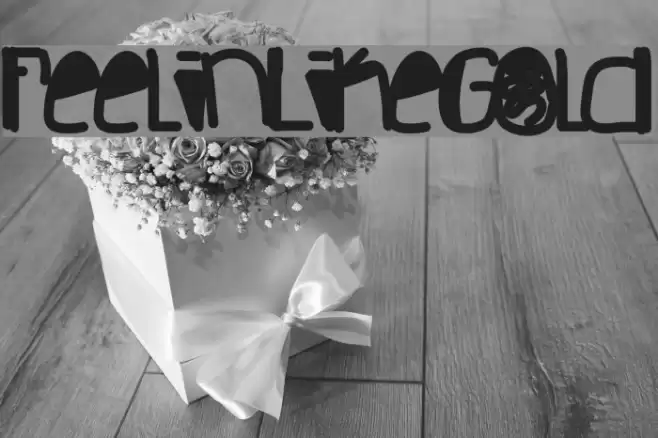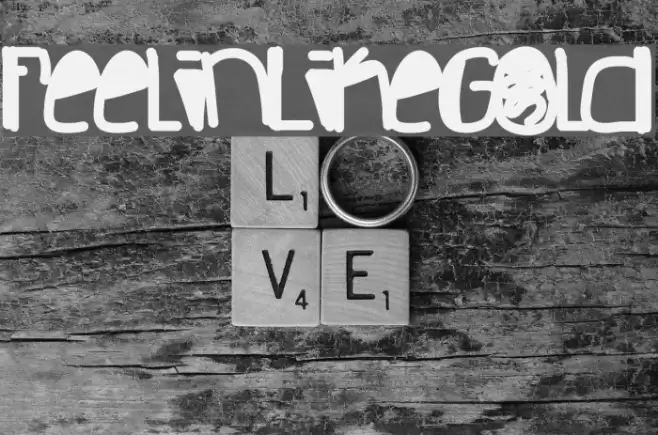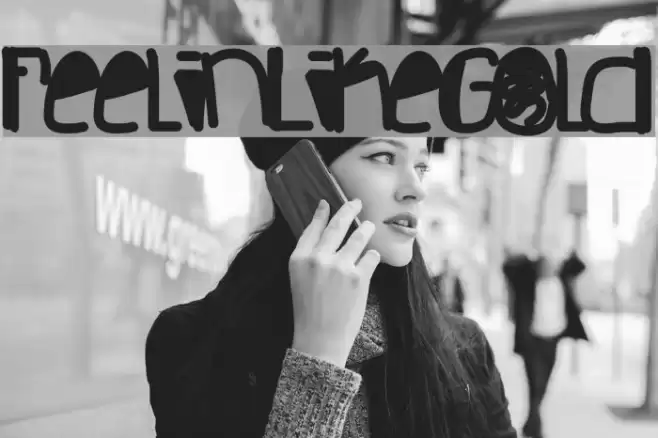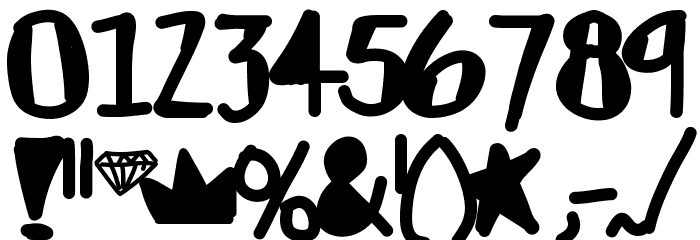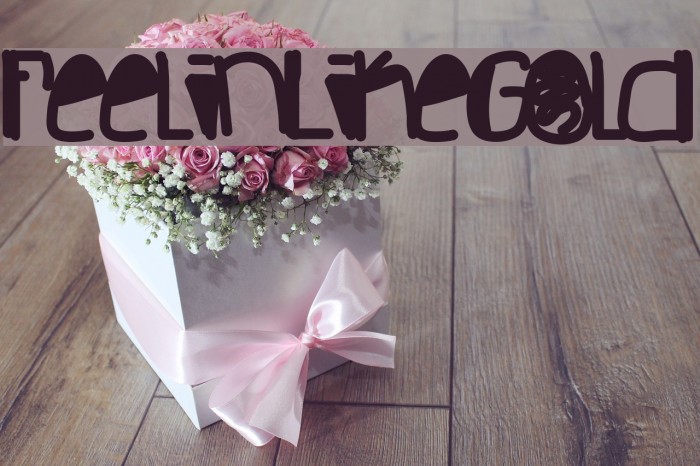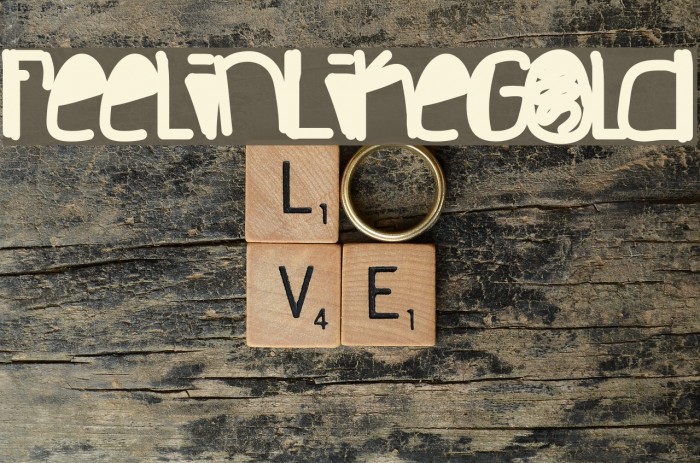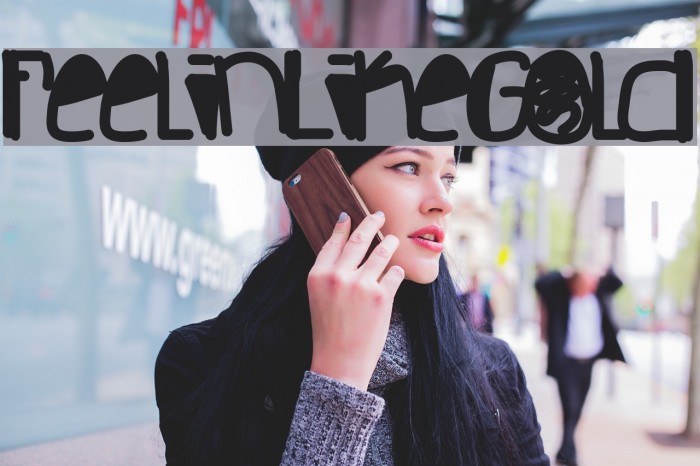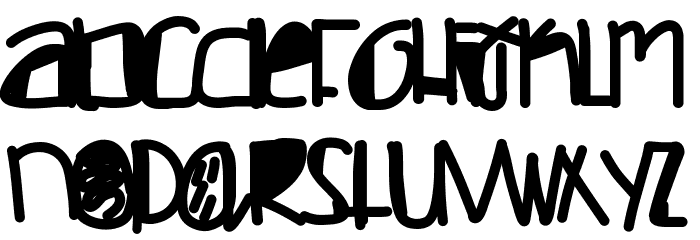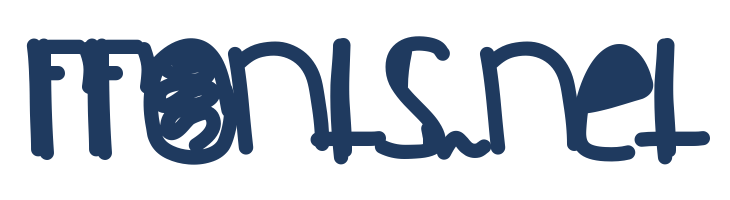
FeelinLikeGold Font
FeelinLikeGold Description
This font features a bold, playful, and highly decorative style with a hand-drawn appearance. The characters are thick and rounded, with a whimsical and artistic flair. Each letter has unique embellishments, such as dots and lines, adding to its quirky and creative look. The numbers and special characters follow the same playful theme, making the font suitable for eye-catching designs. The overall aesthetic is informal and fun, perfect for projects that require a touch of personality and creativity.
A bold, playful, and decorative hand-drawn font with unique embellishments from Cartoon fonts.
- Proposed Projects: Ideal for children's book covers, playful branding, party invitations, and creative posters.